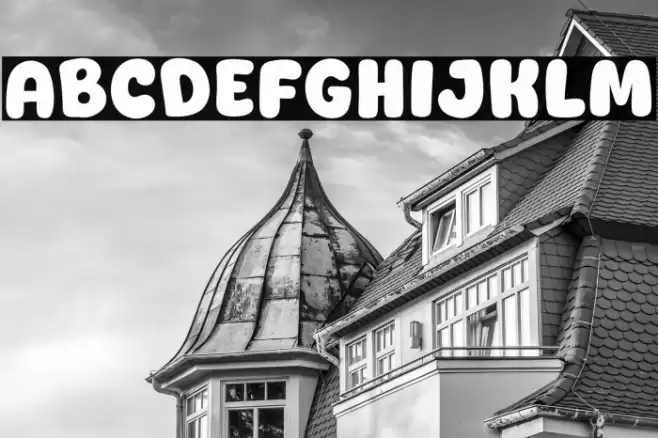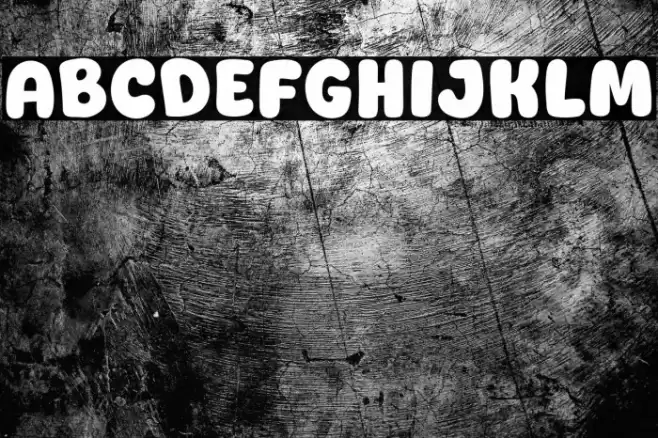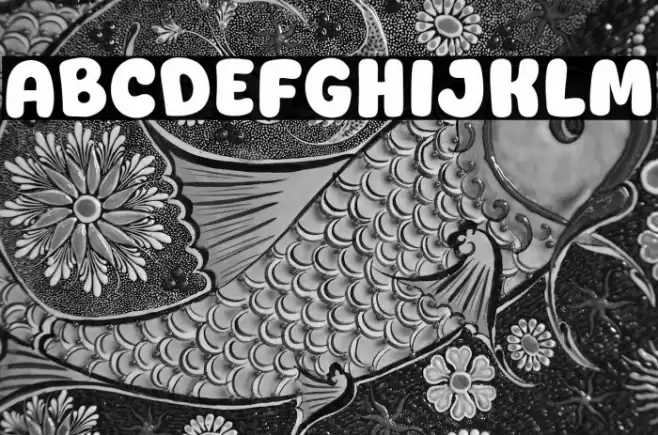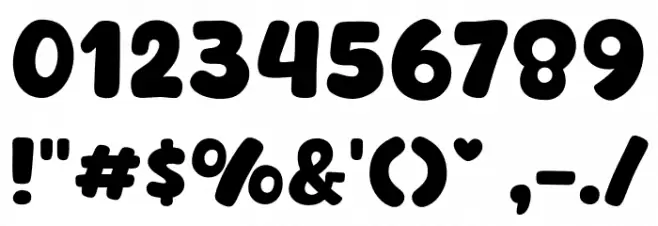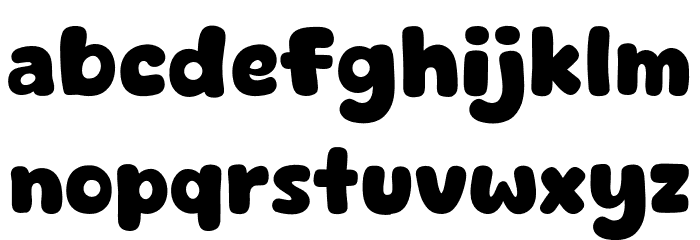
Cute Dino Font
Cute Dino Description
This playful and rounded font exudes a whimsical charm, perfect for capturing a youthful and fun aesthetic. The characters are bold and bubbly, with a consistent thickness that gives them a friendly and approachable feel. The rounded edges and smooth curves make it ideal for projects aimed at children or for adding a touch of lightheartedness to any design. The font maintains a uniform weight throughout, ensuring readability while still conveying a sense of joy and creativity. Its unique style makes it stand out, making it suitable for eye-catching headlines or playful branding.
A playful, rounded font with a whimsical and friendly aesthetic from Uncategorized fonts.
- Font: Cute Dino
- Proposed Projects: Ideal for children's books, playful branding, toy packaging, and fun event invitations.
- Overall Style: Playful
- Use Case: Headlines, Logos, Children's materials